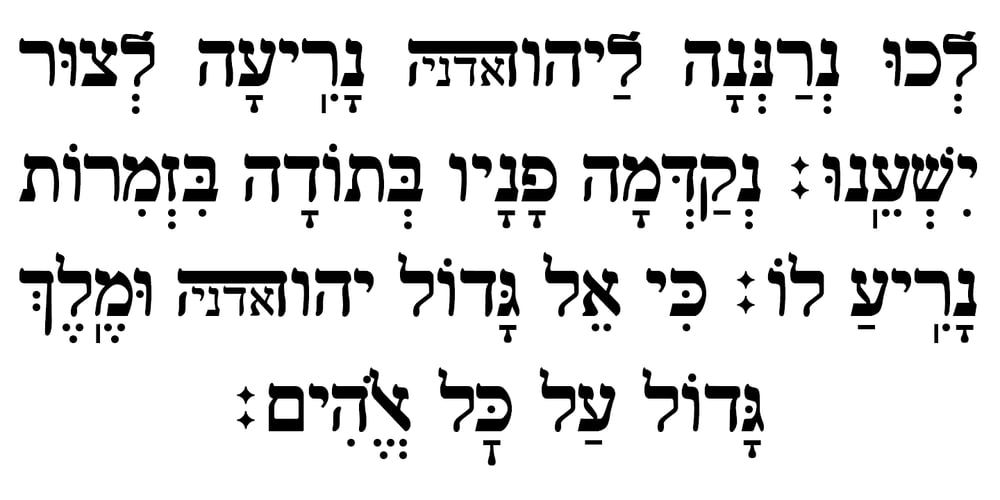
Rinat Font Family was designed by Sami Artur Mandelbaum and published by Samtype. Rinat contains 2 styles and family package options. This hebrew typeface is inspired in prayer books from the beginning of the XX century.You can apply modern hebrew marks like Kamats Katan, Sheva Na, Dagesh Chazak and Cholam Chaser.It’s a classic style with the most modern of a digital font technology and a easy lecture.